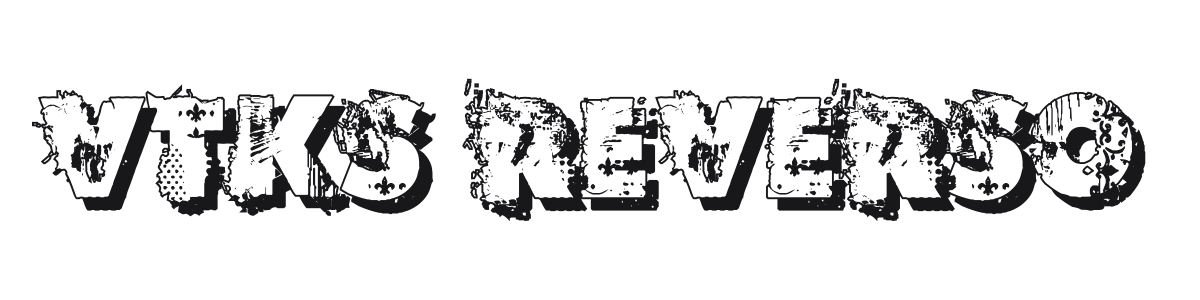
VTKS Reverso
VTKS Reverso is a heavy, textured display face from Brazilian designer Douglas Vitkauskas with a raw, urban grunge quality baked into every letterform. The bold strokes are visibly worn and roughed up, giving it the look of wheat-paste posters left out in the rain or spray paint layered over concrete. Built for headlines, poster work, and street-level branding where clean edges would feel dishonest.